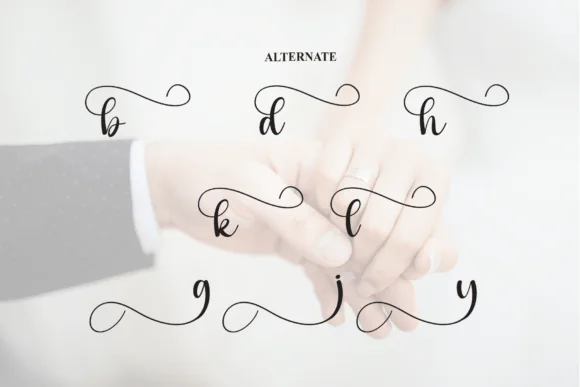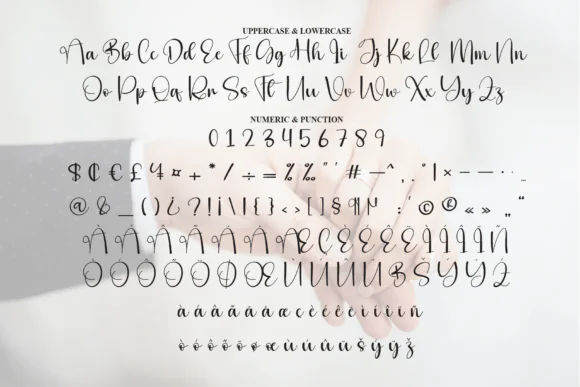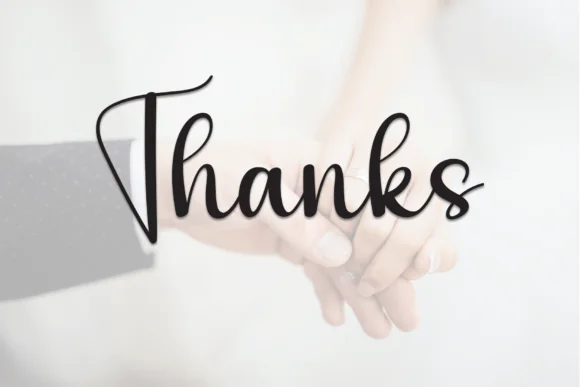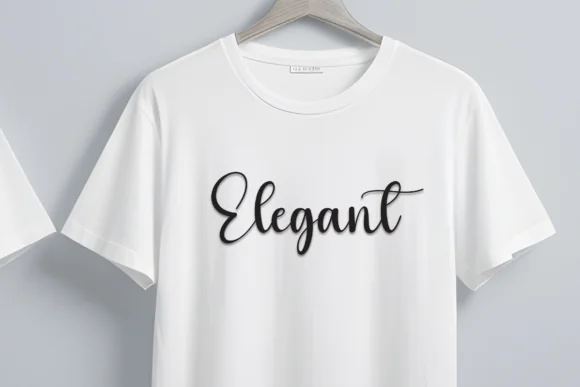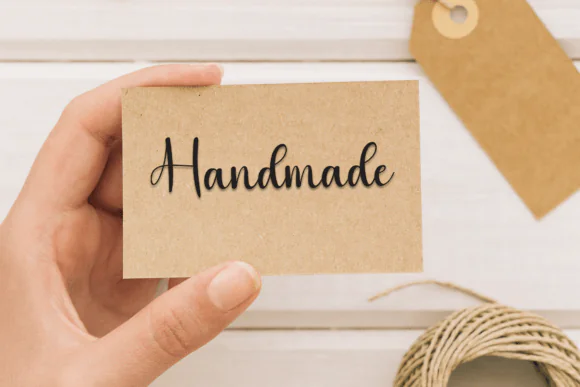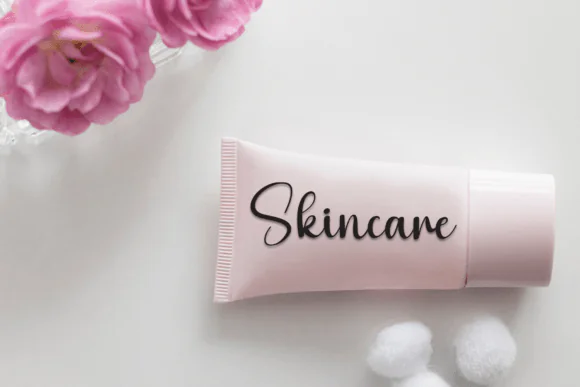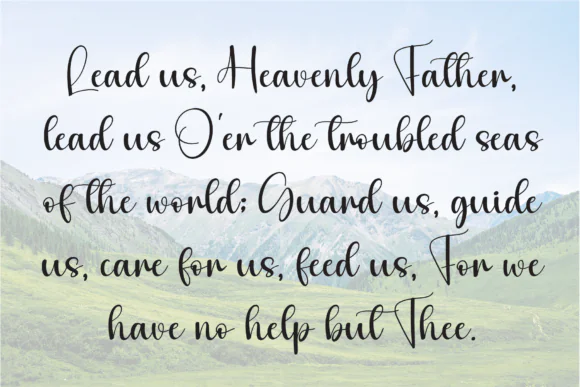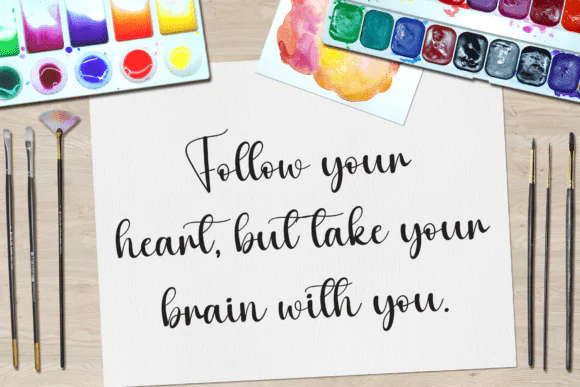
Wedding Font | Stylish Elegant Script Font for Invitations, Logos, Packaging, Branding, Social Media Graphics & Modern Calligraphy Designs
Create refined, graceful, and professional designs with Wedding Font, a stylish script font that blends elegant hand-drawn calligraphy with a modern creative touch. Featuring smooth strokes, fluid curves, and beautifully crafted letterforms, this font is perfect for projects that need a romantic, polished, and sophisticated appearance.
Wedding Font works beautifully for wedding invitations, save-the-date cards, thank you cards, logos, branding, packaging, product labels, social media graphics, greeting cards, business cards, quotes, printable wall art, and luxury stationery designs. Its natural flow and contemporary charm make it suitable for both wedding-related projects and premium lifestyle branding.
This font is ideal for designers, wedding stationery creators, small business owners, crafters, and digital product sellers who want to add elegance and visual appeal to their creative work.
• Wedding invitations
• Save the date cards
• Thank you cards
• Logos and branding
• Product packaging
• Greeting cards
• Business cards
• Romantic quote designs
• Printable wall art
• Bridal shower designs
• Stationery designs
• Mugs, shirts, and stickers
• Luxury design projects
• Stylish script font with elegant flow
• Modern calligraphy-inspired look
• Graceful strokes and fluid curves
• Perfect for wedding and romantic designs
• Great for logos, invitations, packaging, and social media
• Suitable for both print and digital projects
• Adds a refined and sophisticated touch to any design
Wedding Font is a beautiful choice for creating elegant, romantic, and visually appealing designs with a modern handwritten calligraphy feel.